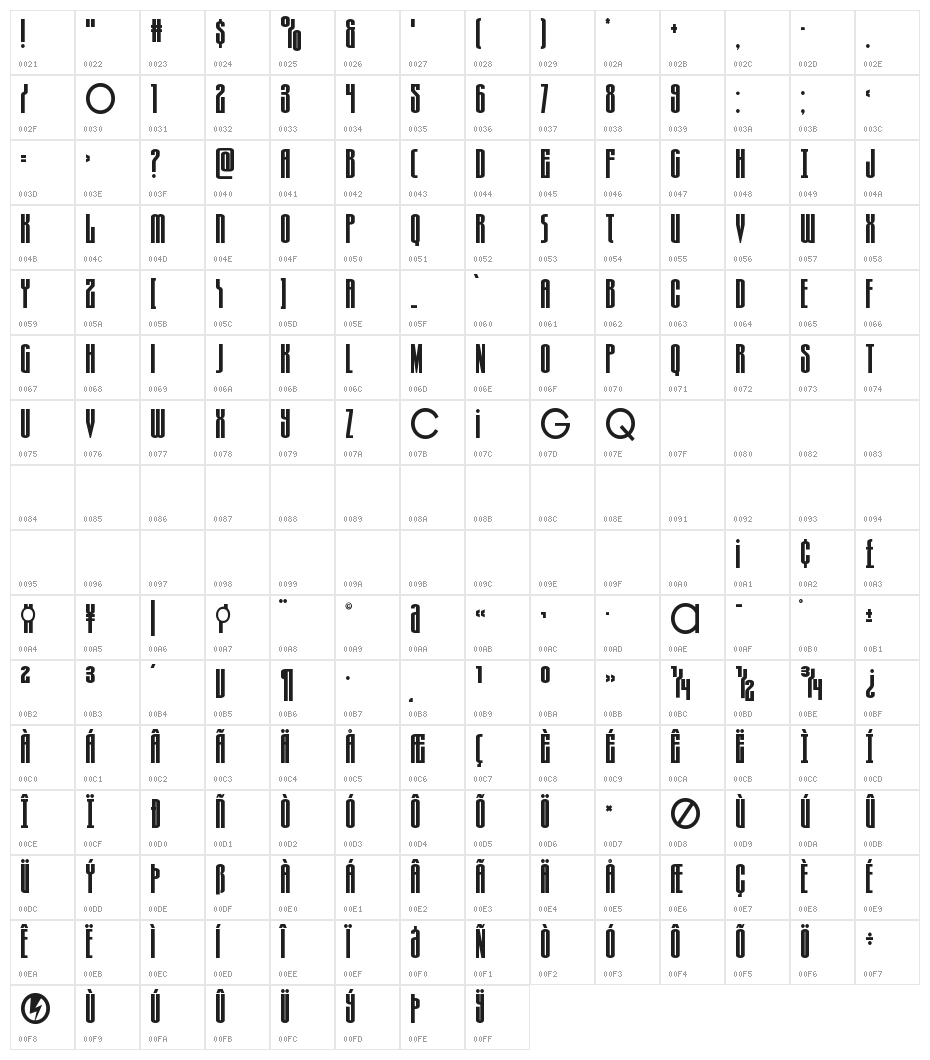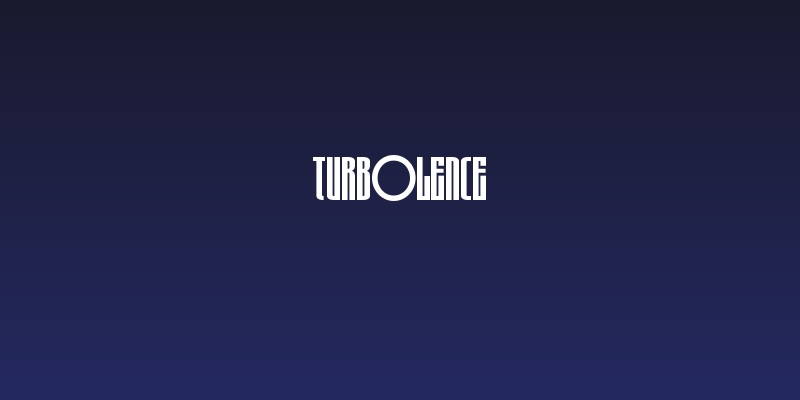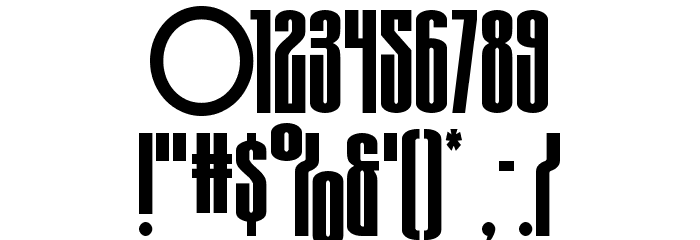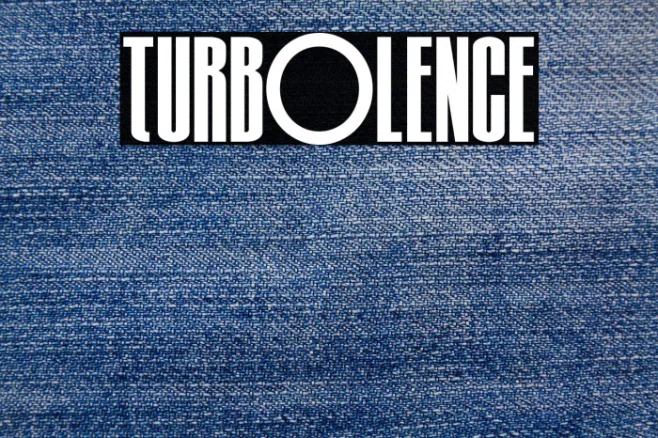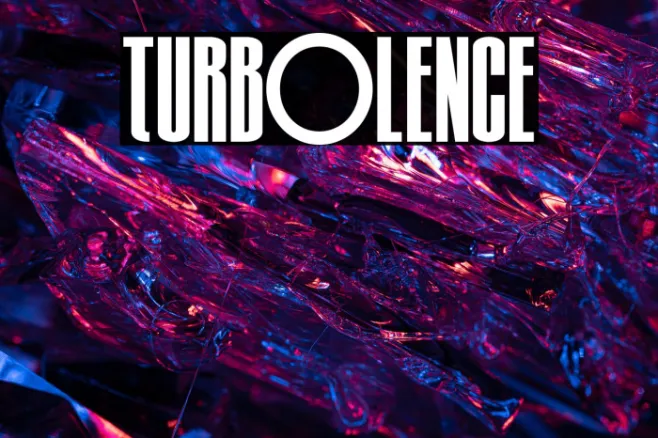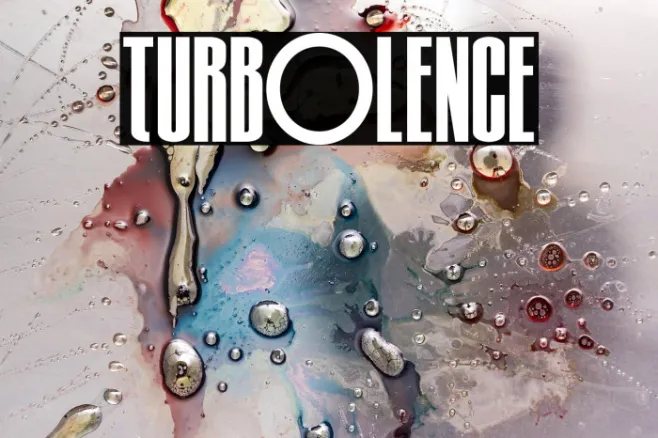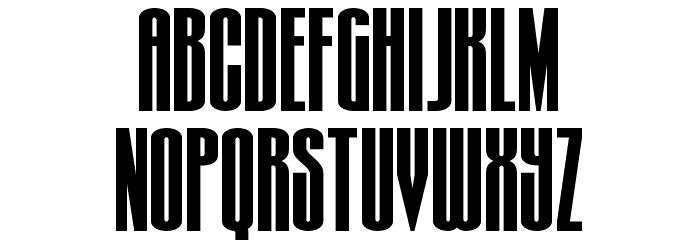
Turb0lence Font
Turb0lence Description
This font features a bold and striking design with tall, narrow characters that create a strong visual impact. The uppercase letters are particularly elongated, giving the font a modern and sleek appearance. The numbers and special characters maintain this consistent style, ensuring a cohesive look across all text. The font's high contrast between thick and thin strokes adds to its dramatic effect, making it ideal for attention-grabbing headlines or titles. Its geometric shapes and clean lines contribute to a contemporary aesthetic, while the tight character spacing enhances its compact and efficient design.
| Proposed Projects | Ideal for posters, headlines, branding, and any project requiring a bold, modern look. |